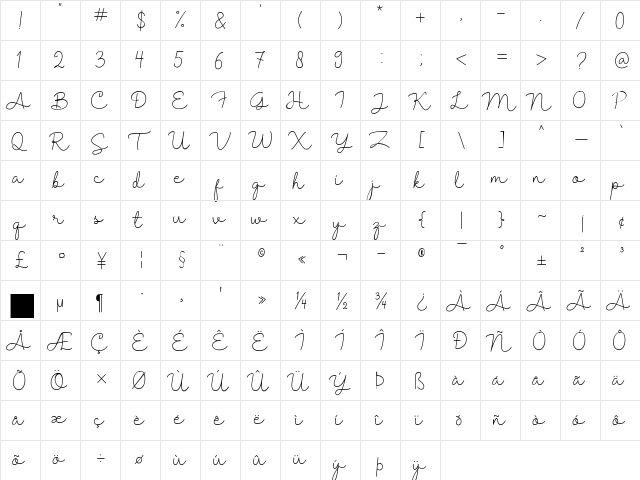
Shantine Regular
Design Context for Shantine Typeface
Shantine takes a measured approach to typography — its balanced proportions and neutral character make it a reliable workhorse for both digital and print work.